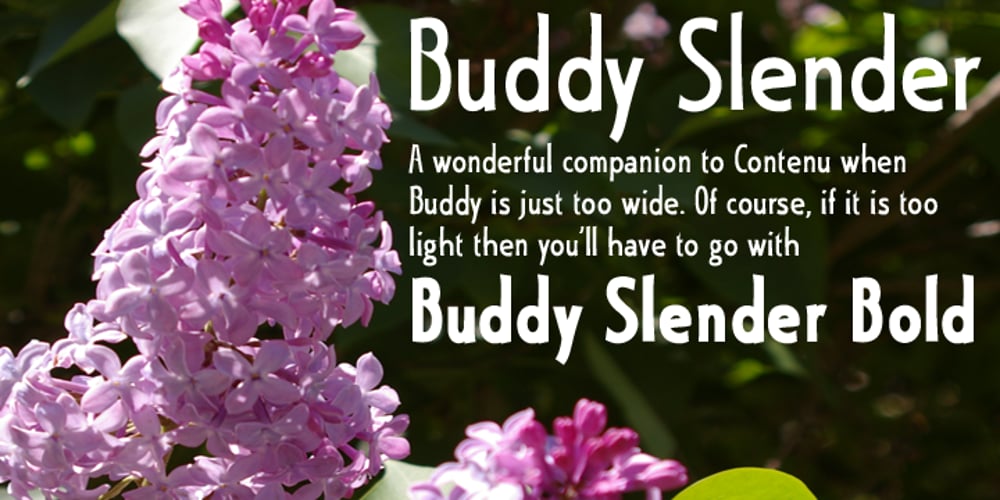
Buddy Slender Font Family was designed by David Bergsland and published by Hackberry Font Foundry. Buddy Slender contains 2 styles and family package options. Buddy Slender is the narrower version of the companion sans for Contenu, the book font family designed for a book on book family design called Practical Font Design. It’s a loose, free, easy to read sans, so when my wife suggested Buddy, it clicked.This is the 2-font Buddy Slender family of Regular & Bold. I made a new more limited feature set for these fonts due to their designed usage.